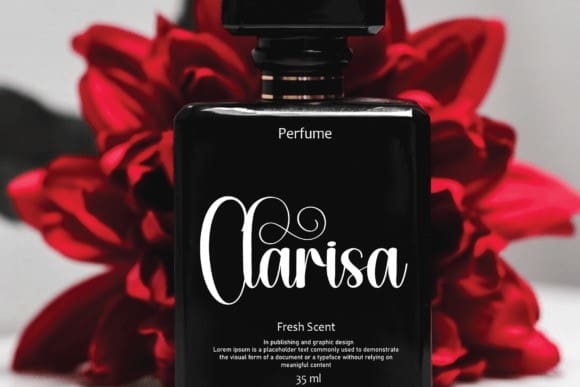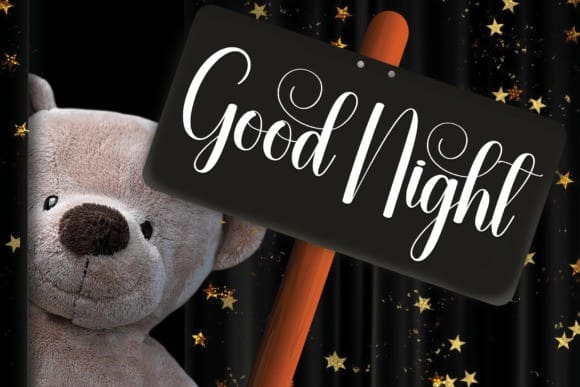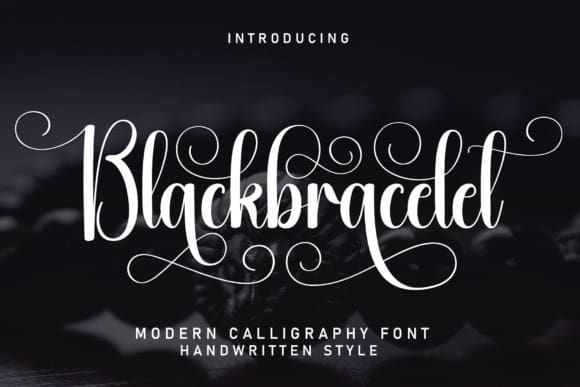
Blackbracelet Script Font
Blackbracelet Script Font, this is a sweet and friendly handwritten font. Cute and fun, this font is ideal for writing wedding invitations, cards, or any other design that might need a fun touch!